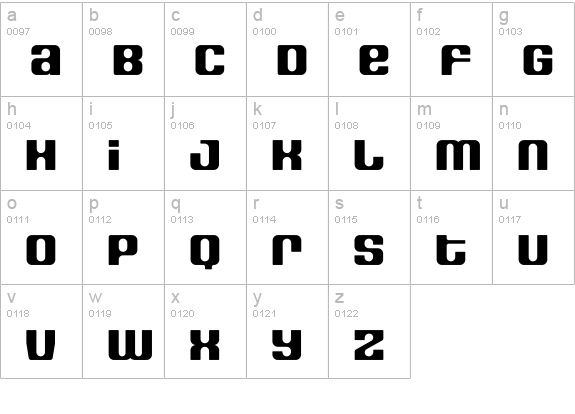
HouseSampler-SpaceageRound is a sleek and futuristic font that is perfect for giving your designs a cutting-edge and modern look. With its rounded edges and spaced-out letters, this font exudes a sense of innovation and creativity. Whether you're designing a logo, poster, or website, HouseSampler-SpaceageRound is sure to make a bold statement. Best of all, HouseSampler-SpaceageRound is available for free download at FontsMarket.com. This means you can easily add this striking font to your design arsenal without breaking the bank. Don't miss out on the opportunity to elevate your projects with the unique style of HouseSampler-SpaceageRound. Download it today and let your creativity soar to new heights!